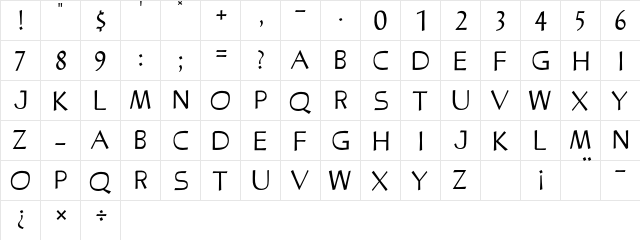
RTF Canadian Syllabics Regular
| Foundry | P22/Rimmer Type Foundry |
| Designer | Jim Rimmer, Paul Hunt |
Design Context for RTF Canadian Syllabics Typeface
RTF Canadian Syllabics offers clean, dependable letterforms without strong stylistic allegiance, making it a practical choice for designers who need flexibility.